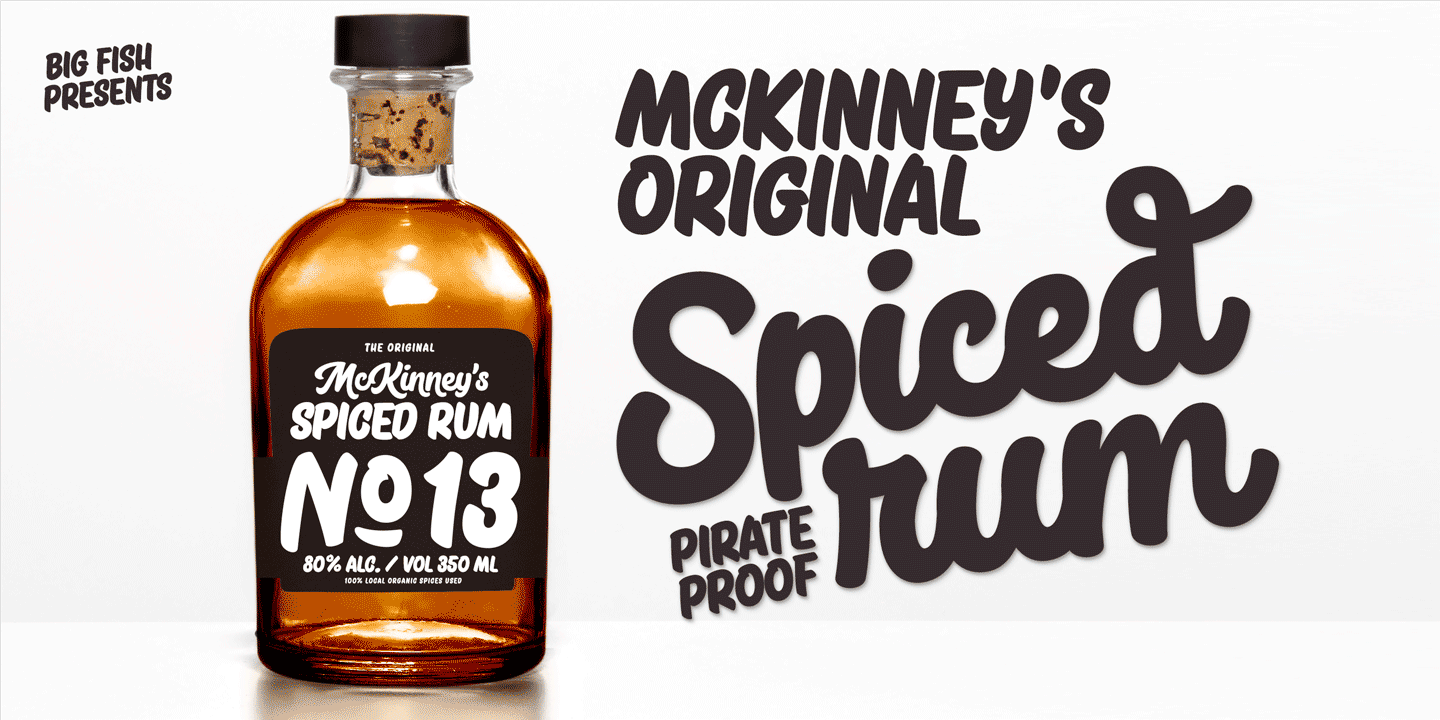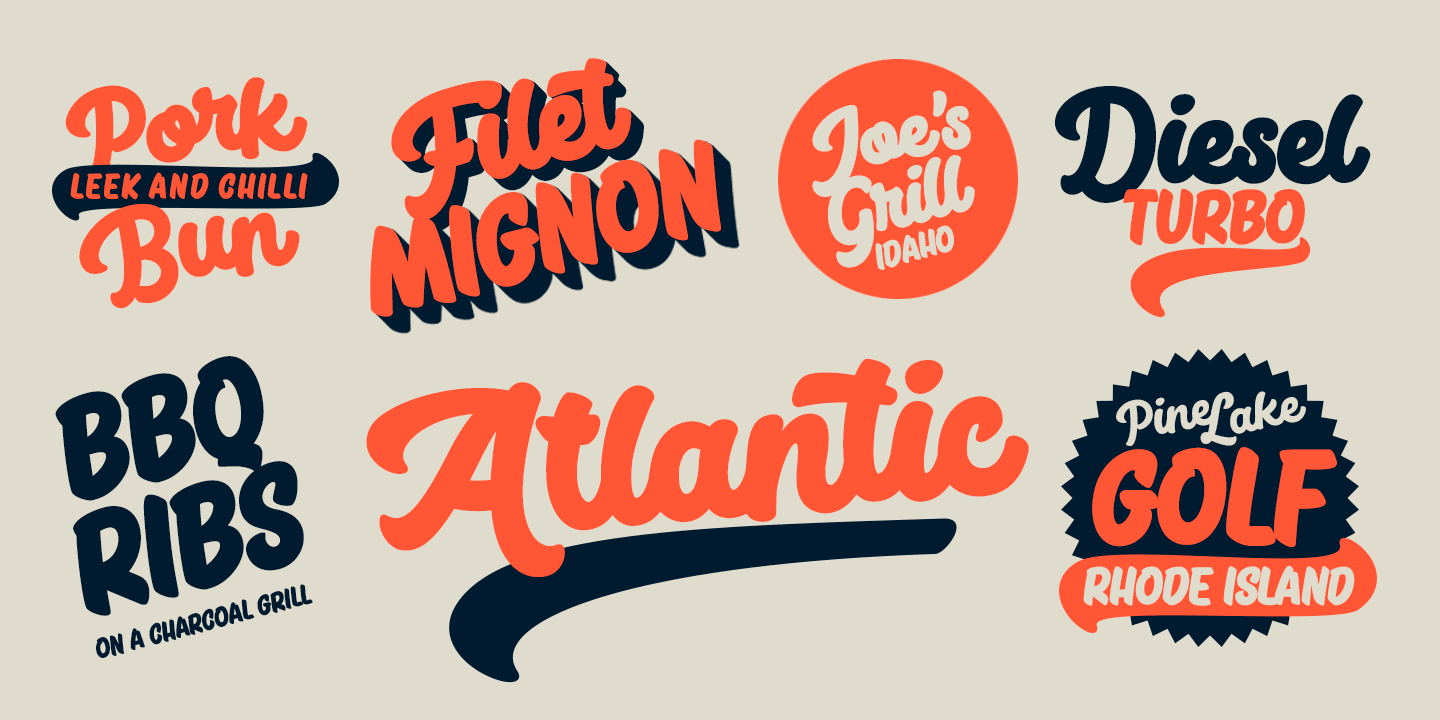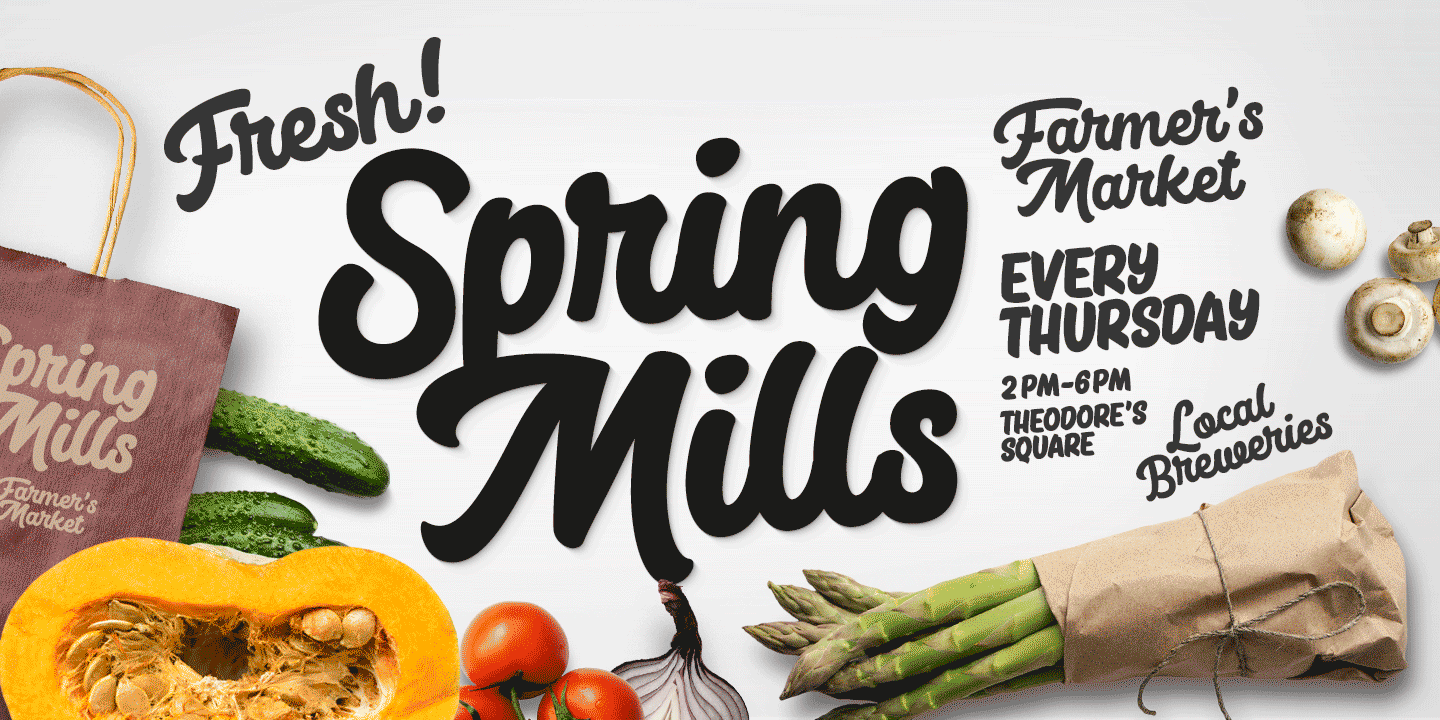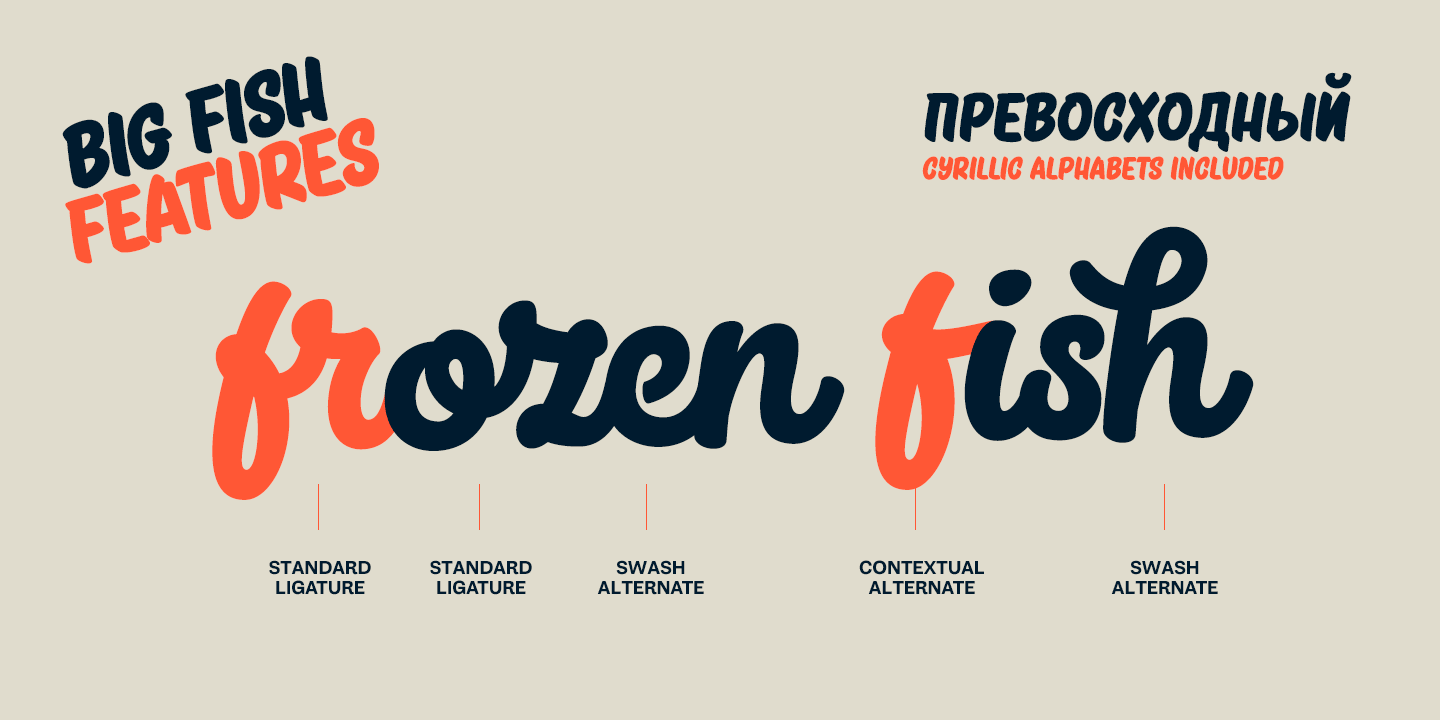
Big Fish is a low contrast Script and Slanted Casuals with bold characters. Big Fish has three weights of Script and a set of Extras that can be used as themselves or combined with script charters for custom swashes. Big Fish is packed with OpenType…